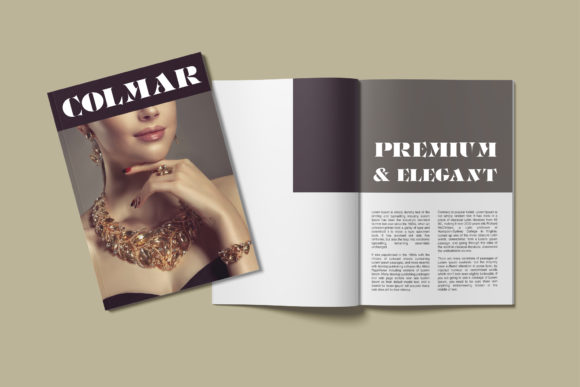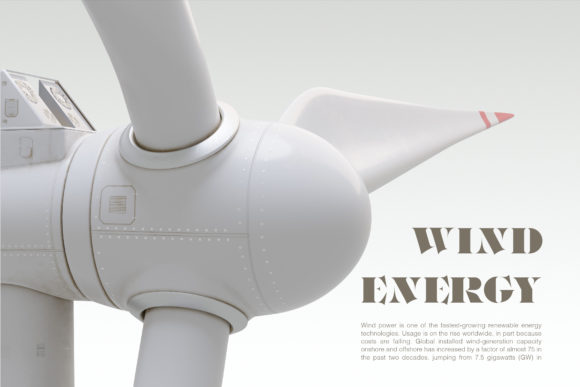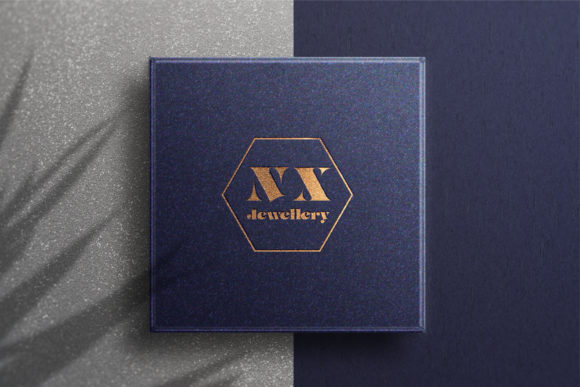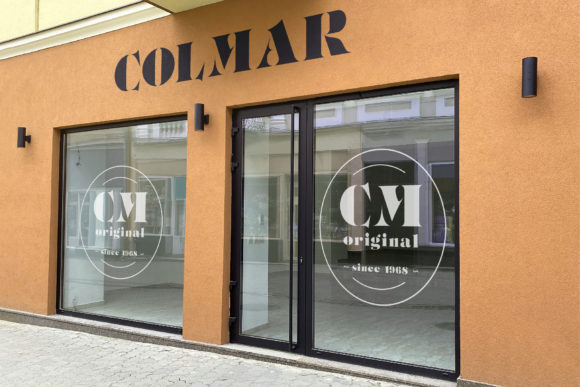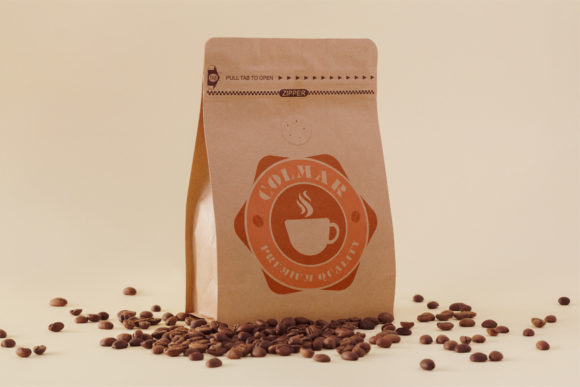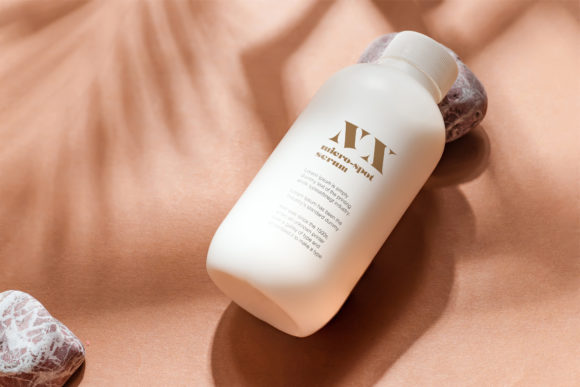
Introducing Colmar Font: Elevate Your Designs with Elegance
In the world of typography, fonts play a crucial role in conveying the message and aesthetic of a design. For those seeking a bold, stylish, and thick lettered serif font, Colmar Font is an excellent choice. This elegant font can be employed in various creations that require a touch of sophistication, making it perfect for designers and crafters looking to add a level of refinement to their projects.
What is Colmar Font?
Colmar Font is a serif font characterized by its bold and thick lettering, which exudes a sense of luxury and elegance. Its classic design makes it suitable for a wide range of applications, from print materials to digital platforms. Whether you’re working on a branding project, packaging design, or editorial content, Colmar Font is sure to make a lasting impression.
Key Features of Colmar Font
- Bold and Stylish: Colmar Font features bold and stylish lettering that commands attention.
- Thick Lettered: The font’s thick lettering gives it a luxurious and high-end feel.
- Serif Design: The serif design adds a touch of classic elegance to any project.
- Versatile: Colmar Font can be used in various design applications, from print to digital.
Why Choose Colmar Font?
There are several reasons why designers and crafters should consider adding Colmar Font to their collection:
- Elegant Touch: Colmar Font adds an elegant touch to any project, making it perfect for designs that require a level of sophistication.
- Classy Projects: The font’s classic design makes it suitable for classy projects, such as luxury branding, high-end packaging, and editorial content.
- Easy to Read: Despite its bold design, Colmar Font is easy to read, making it perfect for body text and headlines.
- Unique Style: Colmar Font’s unique style sets it apart from other serif fonts, making it a great choice for designers looking to create something distinctive.
Using Colmar Font in Your Designs
Colmar Font can be used in a variety of design applications, including:
- Branding: Use Colmar Font to create bold and stylish logos, business cards, and letterheads.
- Packaging: Add a touch of elegance to your packaging designs with Colmar Font.
- Editorial: Use Colmar Font to create stunning editorial content, such as magazines, newspapers, and blogs.
- Digital: Colmar Font can be used in digital applications, such as website headers, social media graphics, and email marketing campaigns.
Tips for Using Colmar Font
To get the most out of Colmar Font, consider the following tips:
- Pair with Other Fonts: Pair Colmar Font with other fonts to create a unique and visually appealing design.
- Use in Headlines: Use Colmar Font in headlines to create a bold and stylish statement.
- Keep it Simple: Keep your design simple and clean to let Colmar Font shine.
Colmar Font is a bold, stylish, and thick lettered serif font that can elevate any design to new heights. Its elegant touch makes it perfect for classy projects, and its versatility ensures that it can be used in a wide range of applications. Whether you’re a designer or crafter, Colmar Font is a great addition to your collection. So why not give it a try and see how it can bring your designs to life?